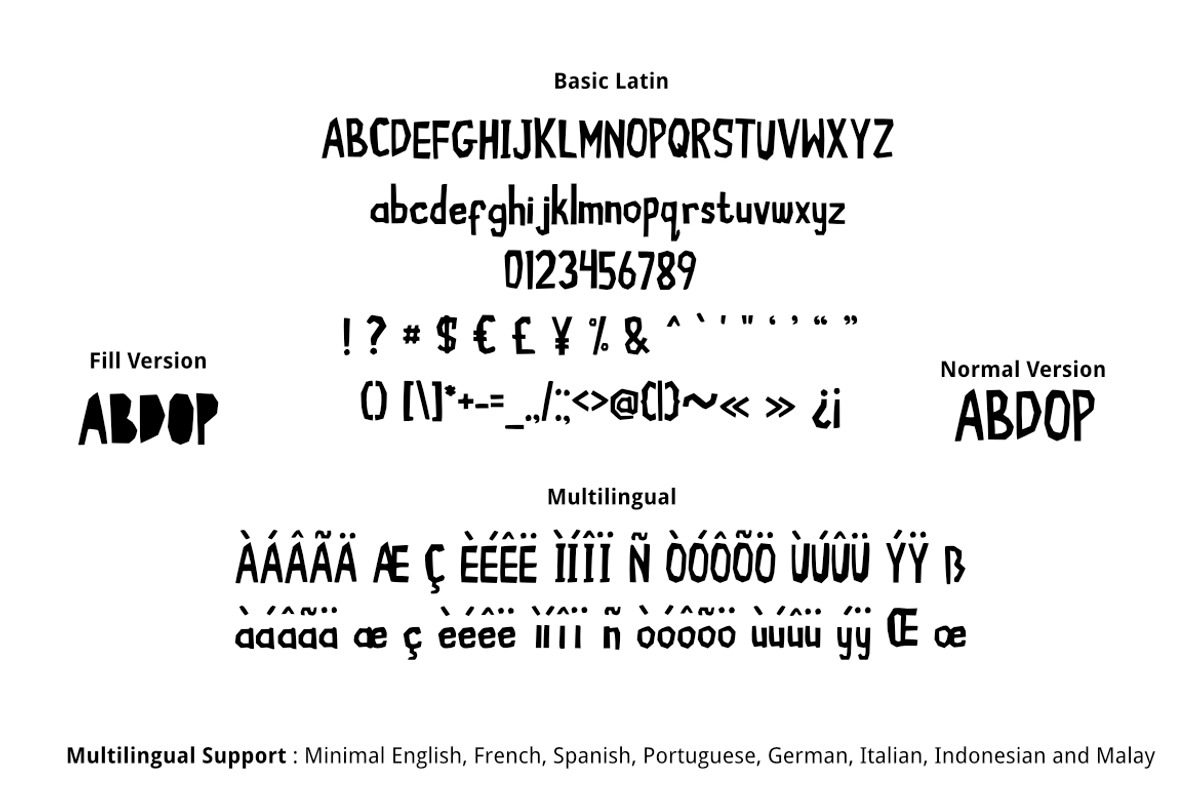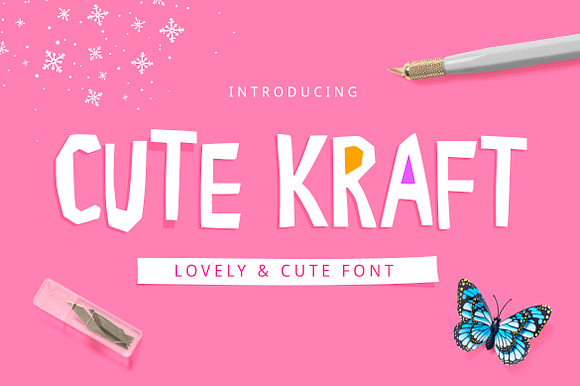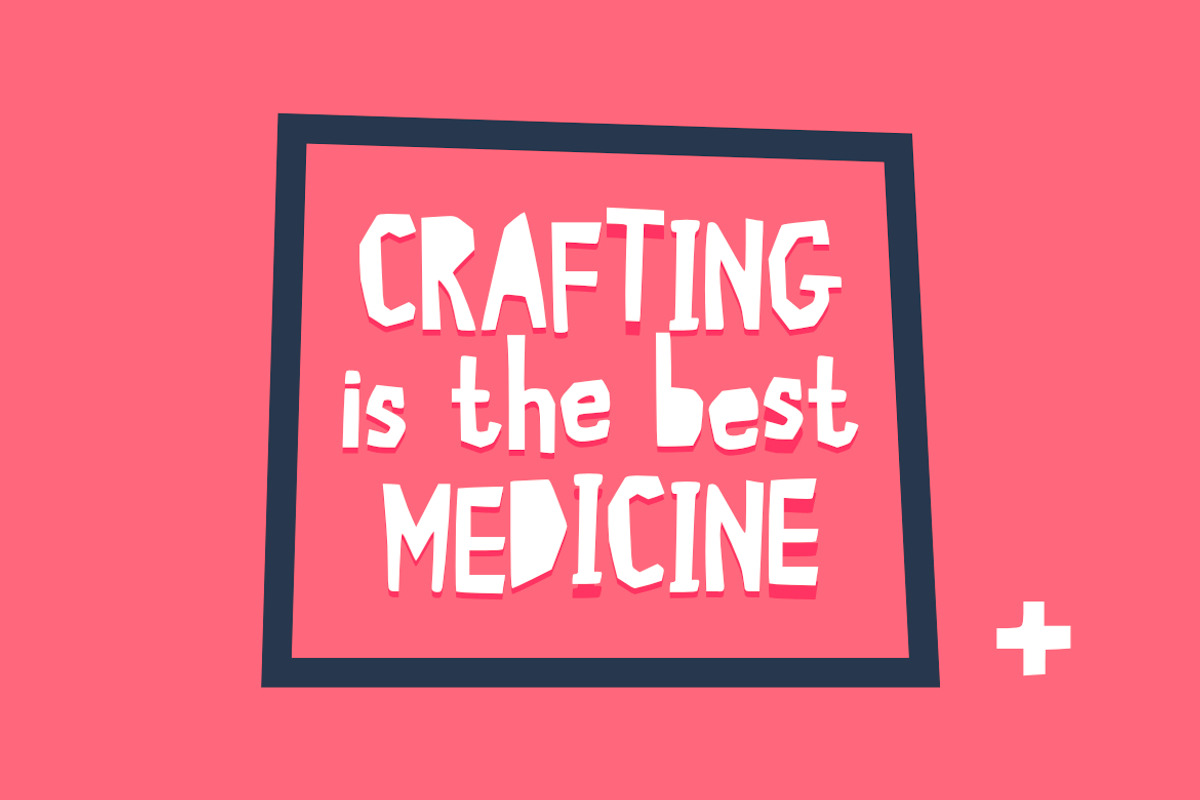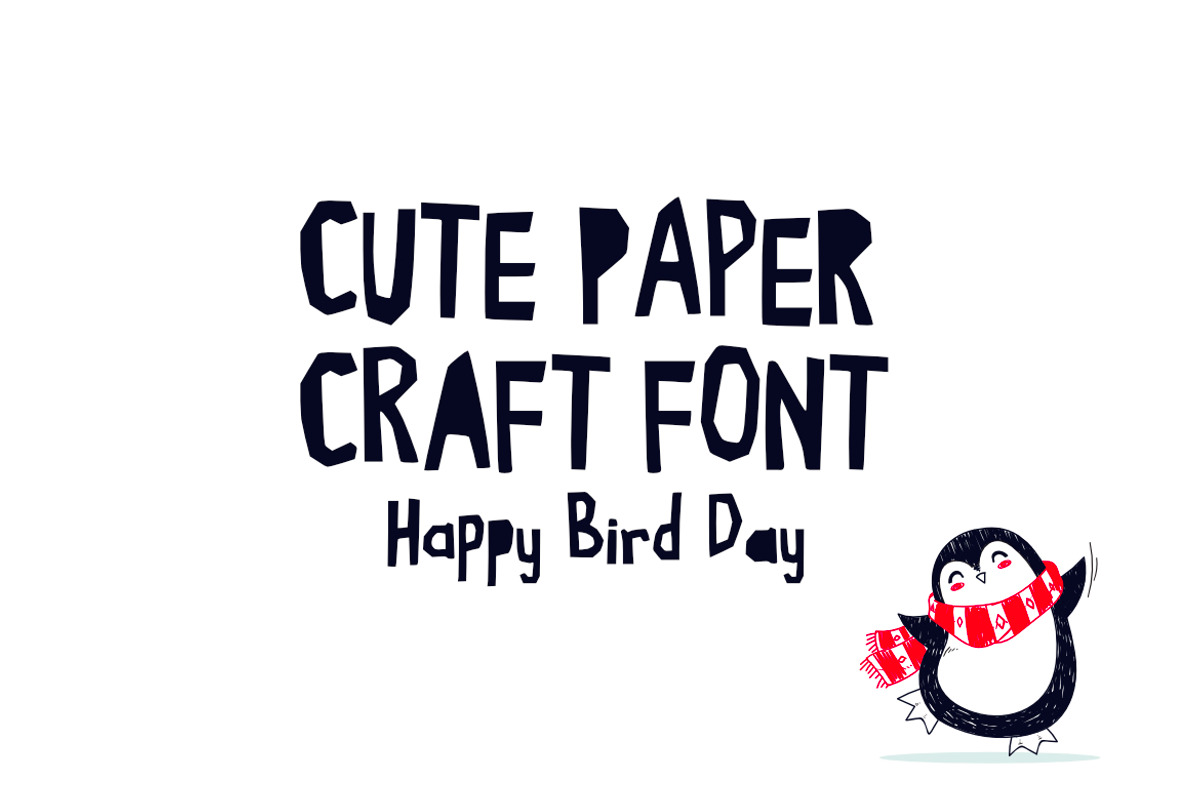
Cute Kraft Fonts
Artistic and lovely paper cut style fonts , suitable for many project, signature , quotes, logo , doodle, heading , title etc.
Basic Latin + Multilingual Support : Minimal English, French, Germany, Italian, Portuguese, Spanish, Indonesia, Malay
Cute Kraft Fonts by YandiDesigns fits naturally into Branding, posters, packaging, typography.